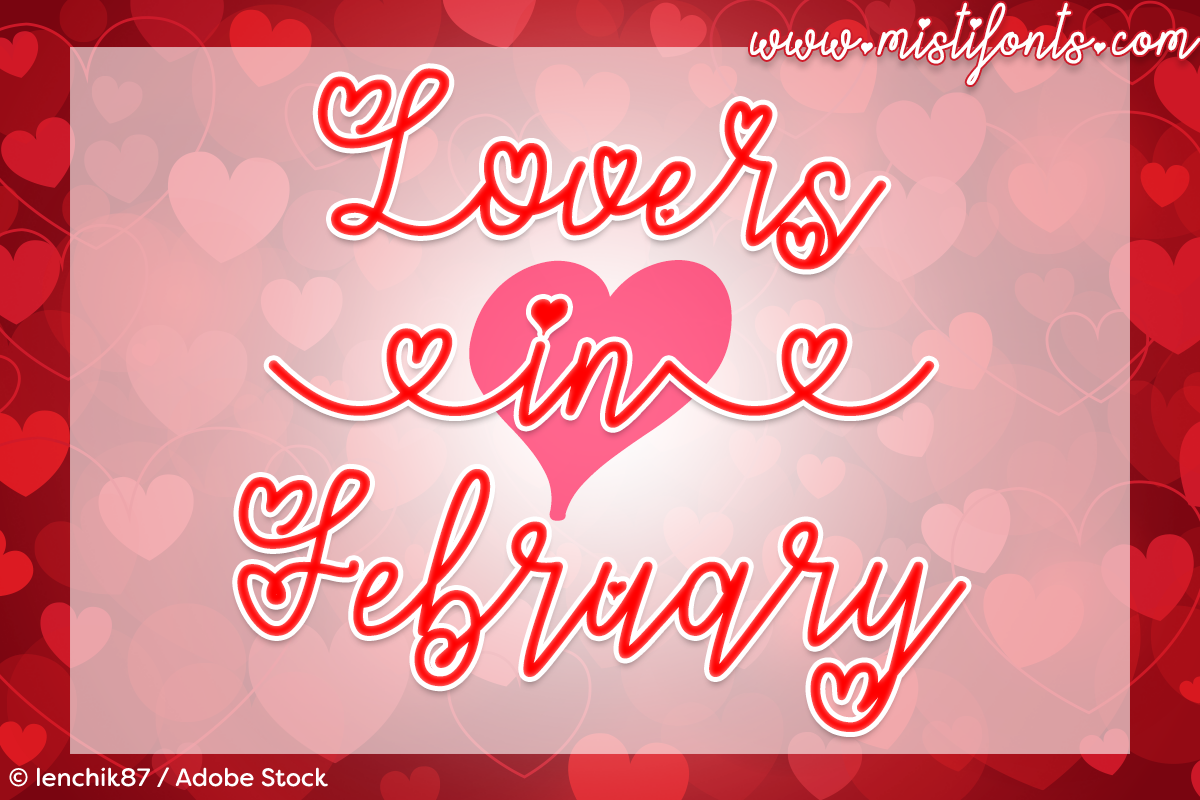
Lovers in February Font
SPECIAL SYMBOLS
Type _ (underscore) for the heart swirl that connects between lowercase (and some uppercase)
Type | (bar) for the solid heart
| Classification: | Handwritten Fonts, Script Fonts |